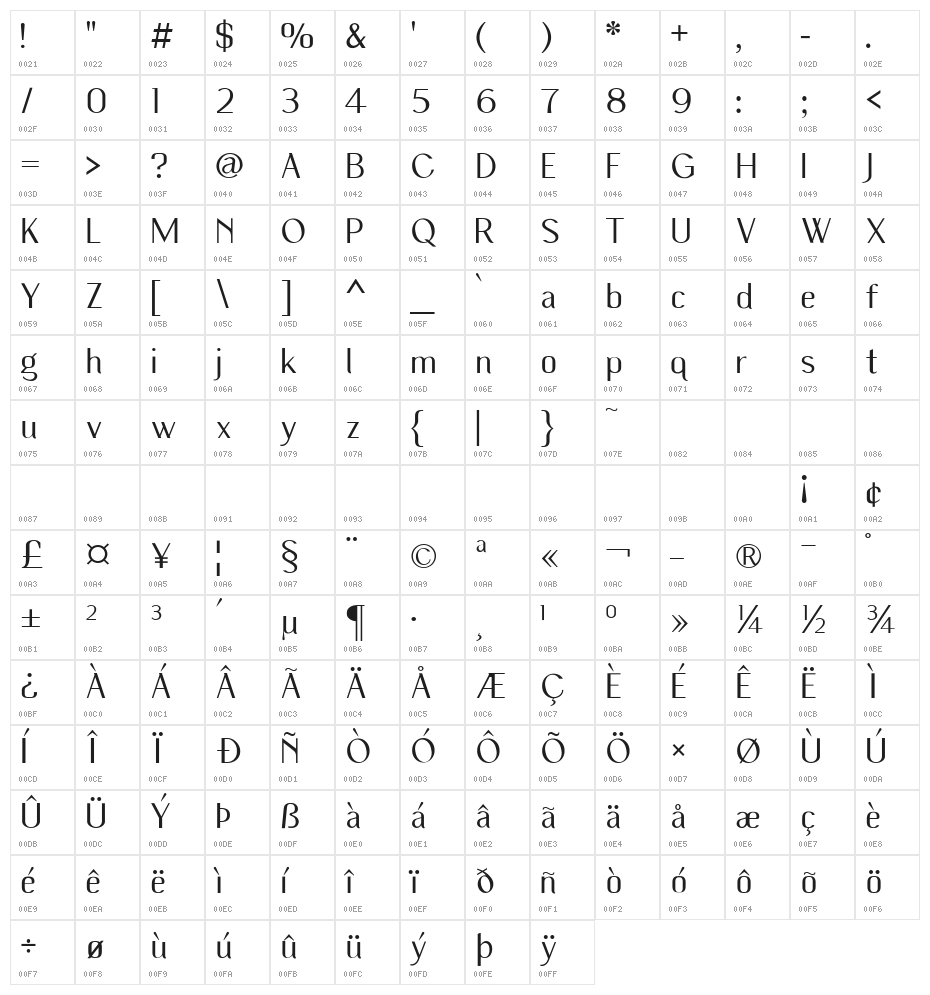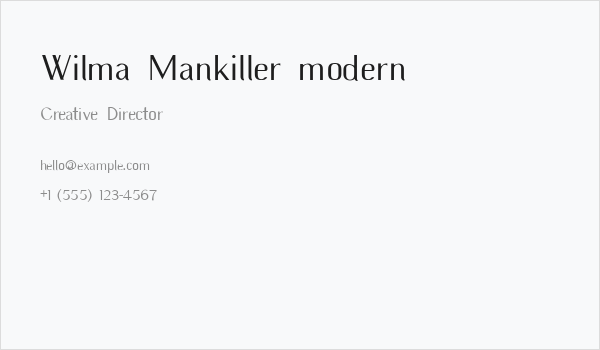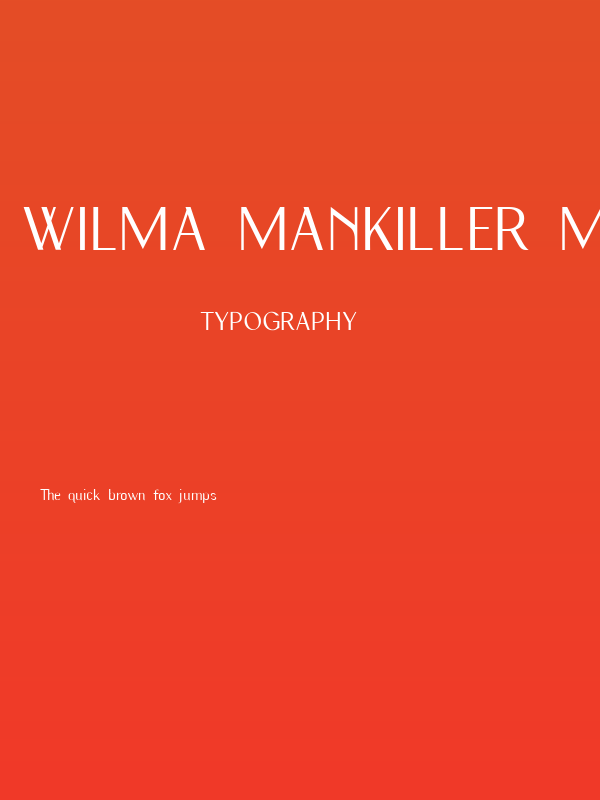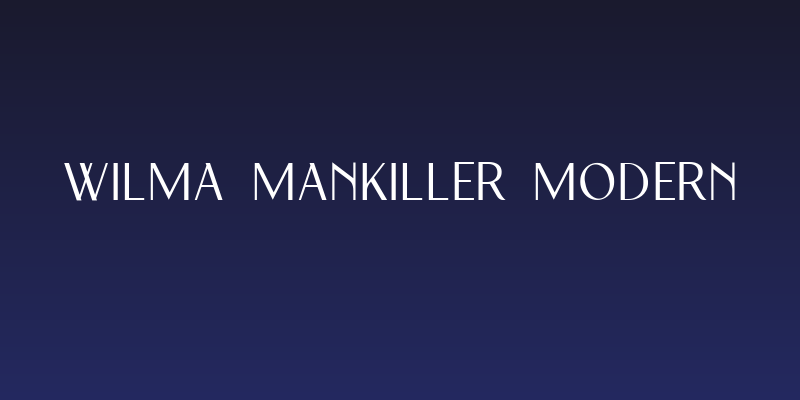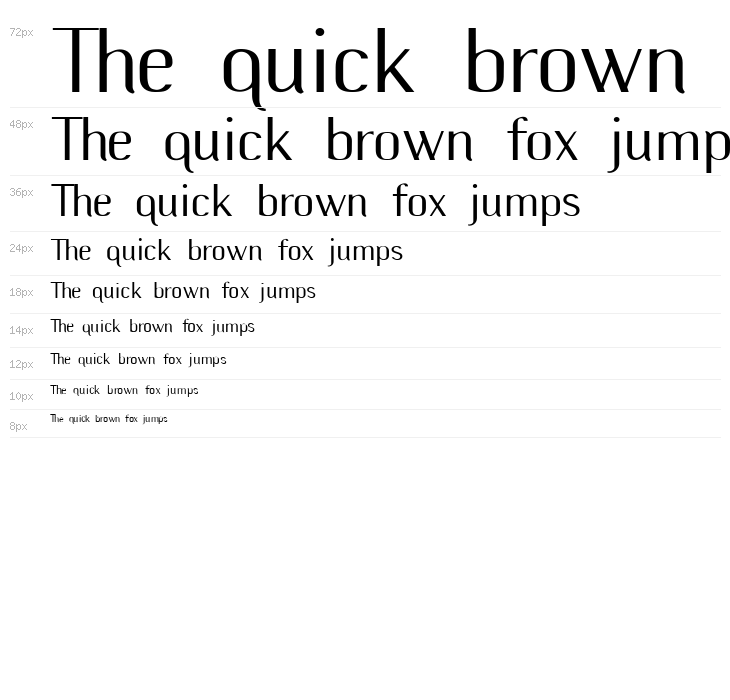
Wilma Mankiller modern Font
Wilma Mankiller modern Description
This font features a modern and clean design with a sans-serif style. The characters are sleek and slightly condensed, offering a contemporary look that is both professional and approachable. The uppercase letters are uniform and balanced, while the lowercase letters maintain a consistent height and width, providing a harmonious appearance. The numerals are clear and easy to read, making them suitable for various applications. Special characters are well-defined, adding versatility to the font's use. The overall design is minimalistic, with a focus on readability and elegance.